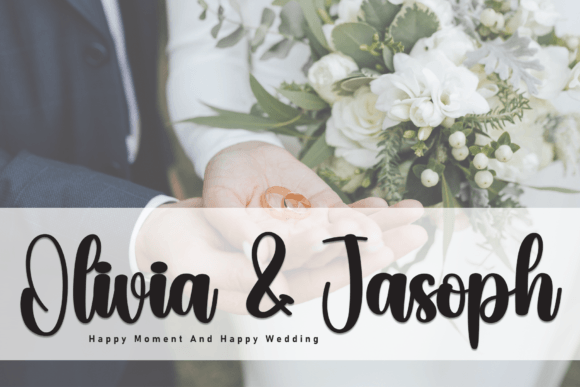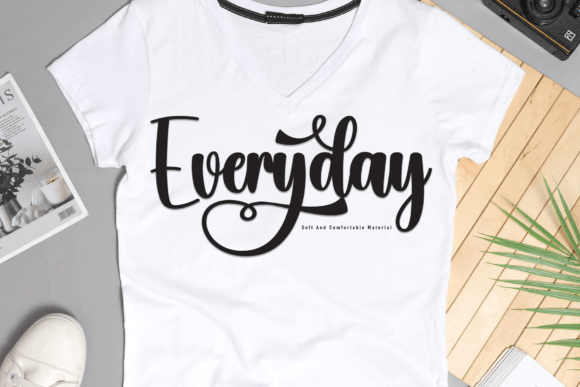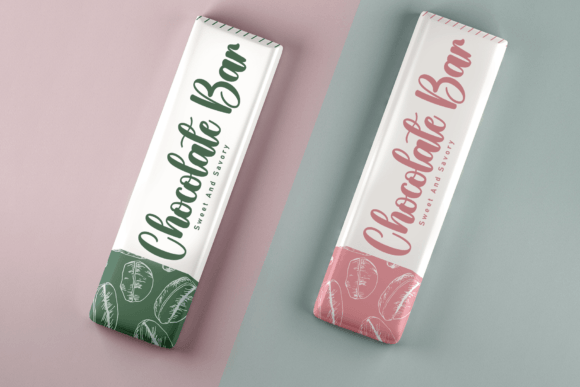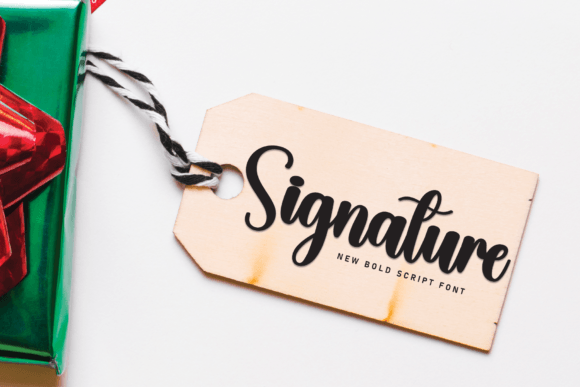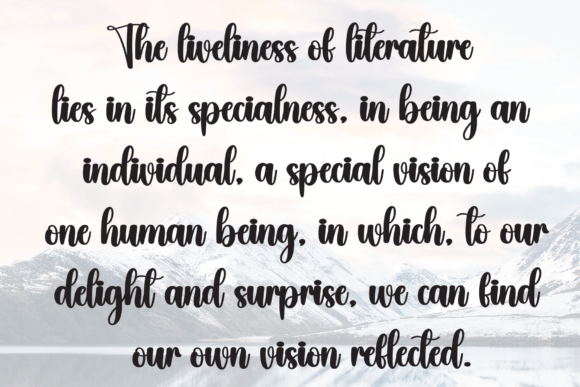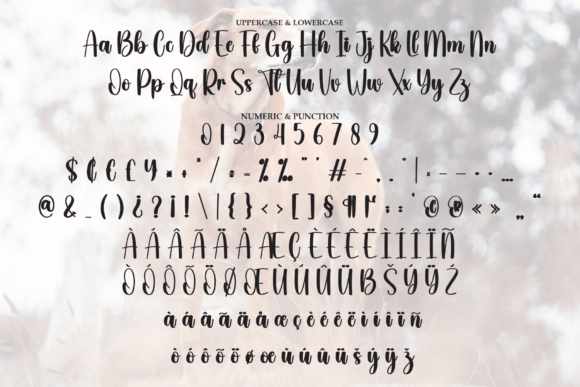
The Beagle Font: A Creative Game-Changer for Designers and Crafters
Beagle Font Details
The Beagle Font is a special creative product designed to give you an extraordinary experience. Here are some of its key features:
- Latest style letters perfect for wall displays, wedding invitations, social media post logos, advertisements, product packaging, product designs, labels, photography, watermarks, invitations, stationery, and any project that requires tasteful handwriting.
Honest Review
Here’s what I love about Beagle Font:
- ✨ Unique and stylish handwriting font that adds a personal touch to any design.
Small quirks or limitations:
- 🤔 Some users might find the font a bit too ornate for certain projects, such as minimalist designs.
- ⚠️ The font might not work well with very small font sizes, so it’s best used at larger sizes.
The Beagle Font was inspired by the beauty of handwriting and the desire to create a unique, stylish font that would bring a personal touch to designs. The designer aimed to create a font that would be both elegant and playful, perfect for a wide range of projects.